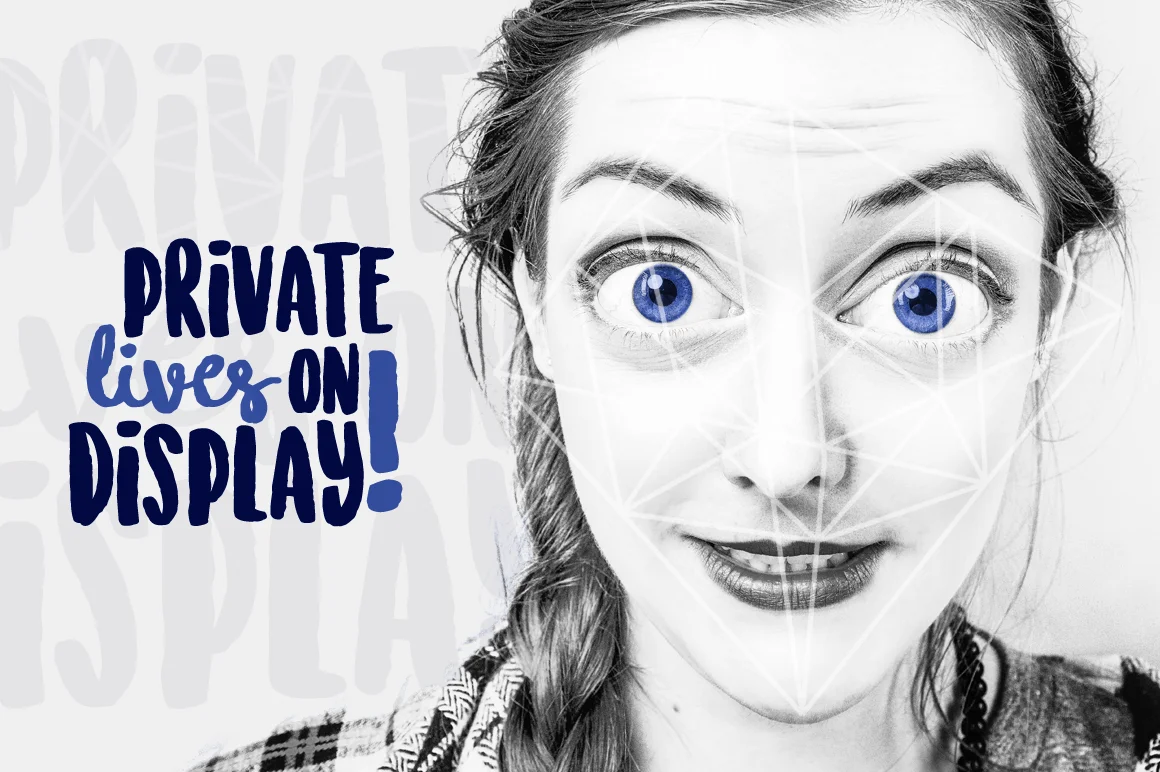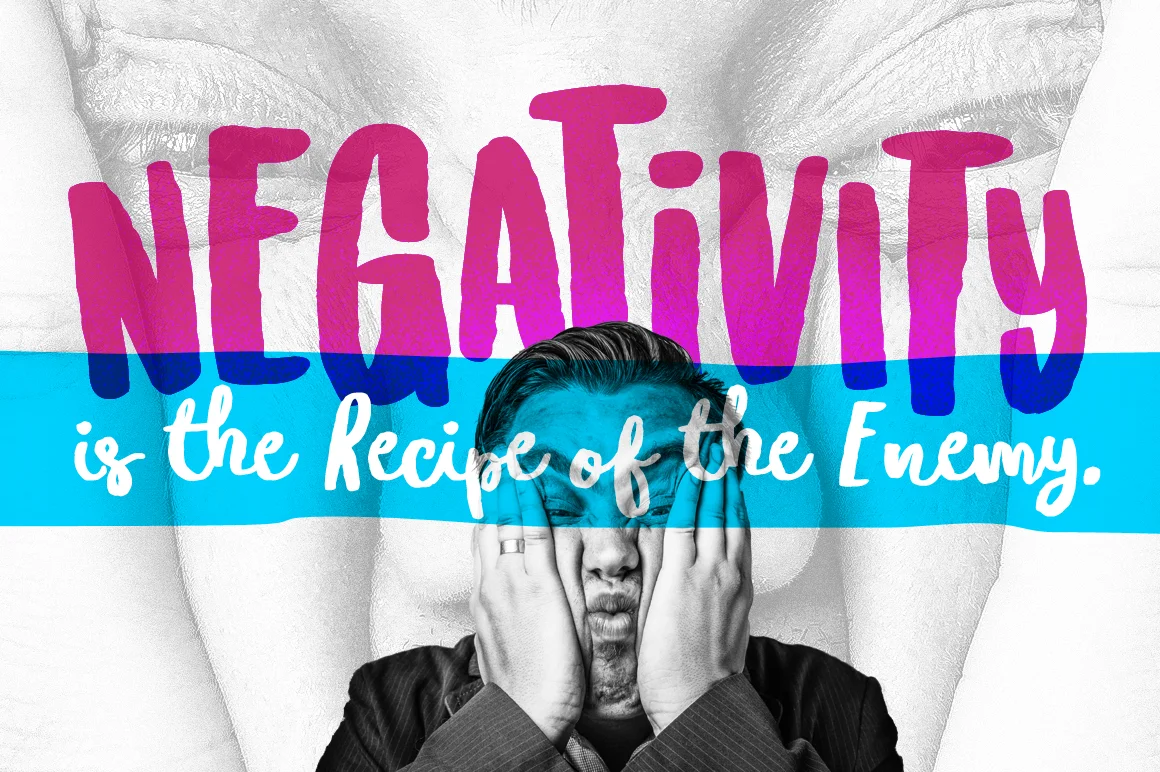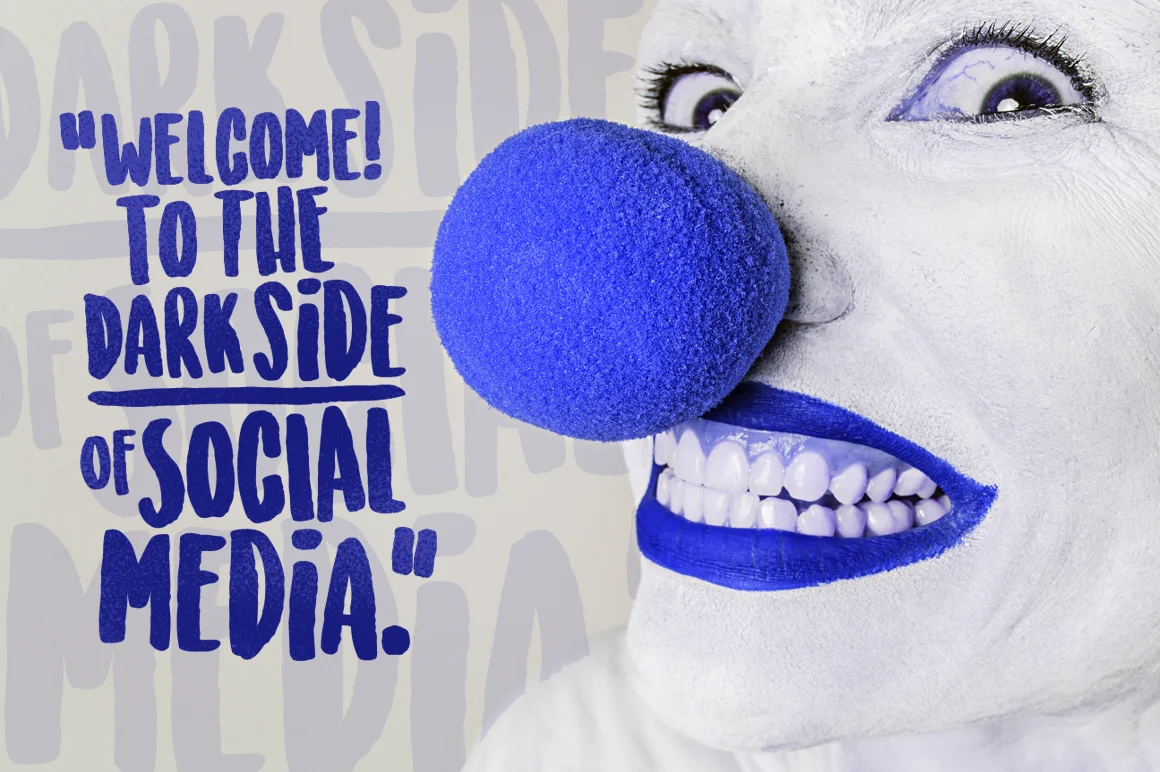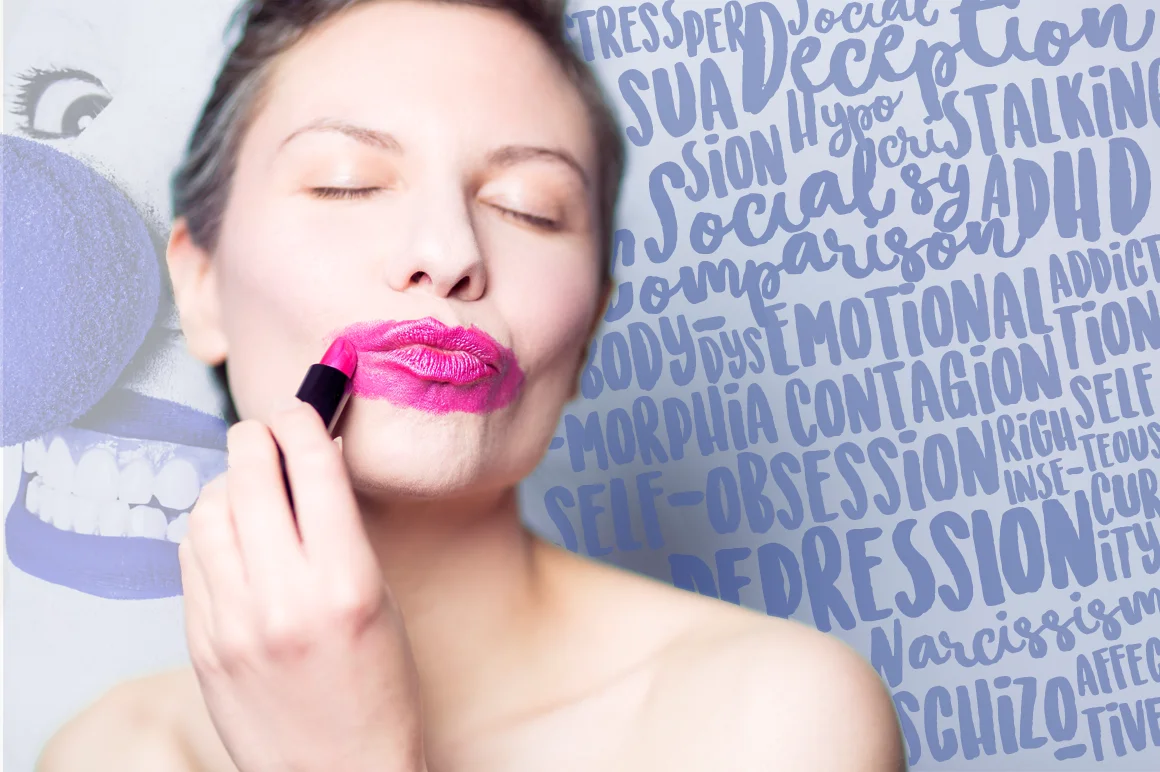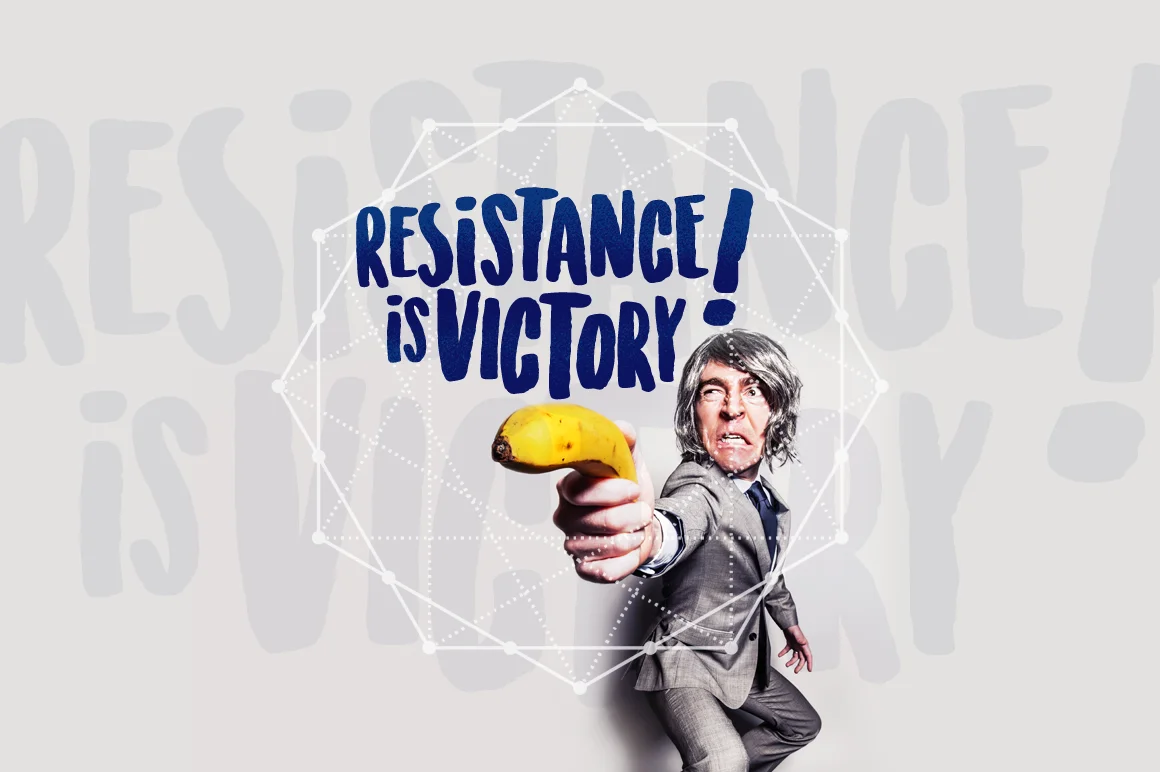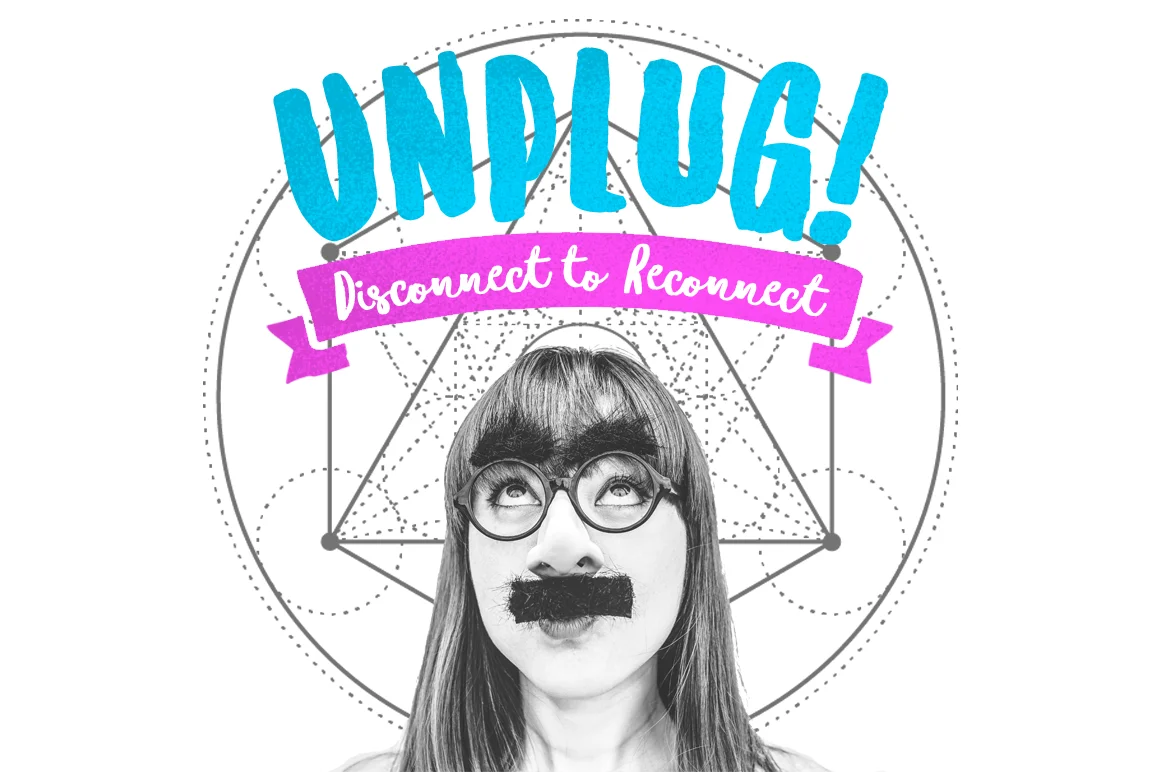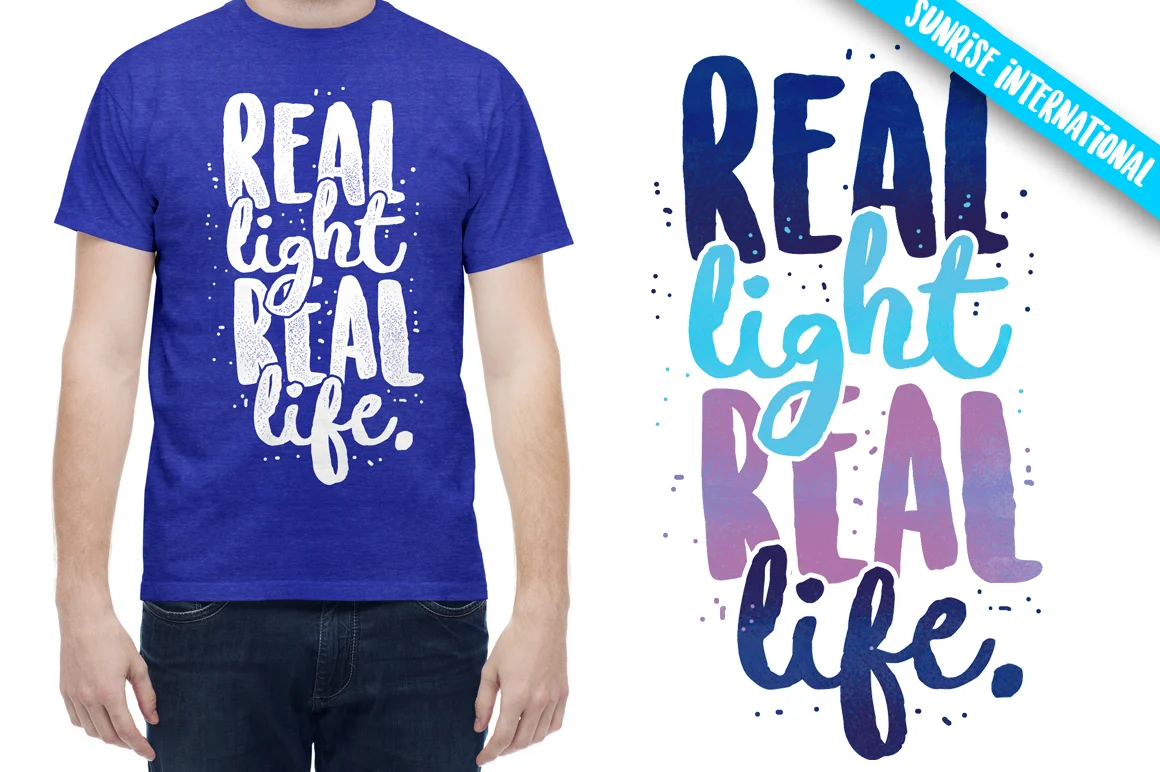
Sunrise International (Typeface)
There is a particular satisfaction in finding a typeface that delivers controlled contrast that rewards close inspection without compromise. Sunrise International (Typeface) consistently provides it. The typeface brings a versatile sensibility to a broad range of creative disciplines, with the kind of restraint that lets content lead that holds up whether the work is print-first or screen-first.
In practice, Sunrise International (Typeface) proves particularly effective for web design, signage systems, annual reports, logo design, advertising campaigns. Designers reaching for it find that the type decisions feel resolved rather than laboured — a useful quality when client timelines are tight.
The range of applications extends to editorial layouts, social media graphics, environmental graphics, product labels. That breadth is deliberate: the proportions and spacing were stress-tested across a wide range of mock briefs before the typeface was finalised.
The proportions balance x-height, cap height, and ascender length to produce a face that reads confidently at body copy sizes without losing presence at display scale. Sidebearings were derived from visual rhythm testing rather than mathematical calculation alone.
Graphic designers working on identity systems find Sunrise International (Typeface) a reliable choice for projects that demand both personality and restraint. The design avoids the self-conscious quirkiness that dates quickly, settling instead for considered distinctiveness that holds up over time.